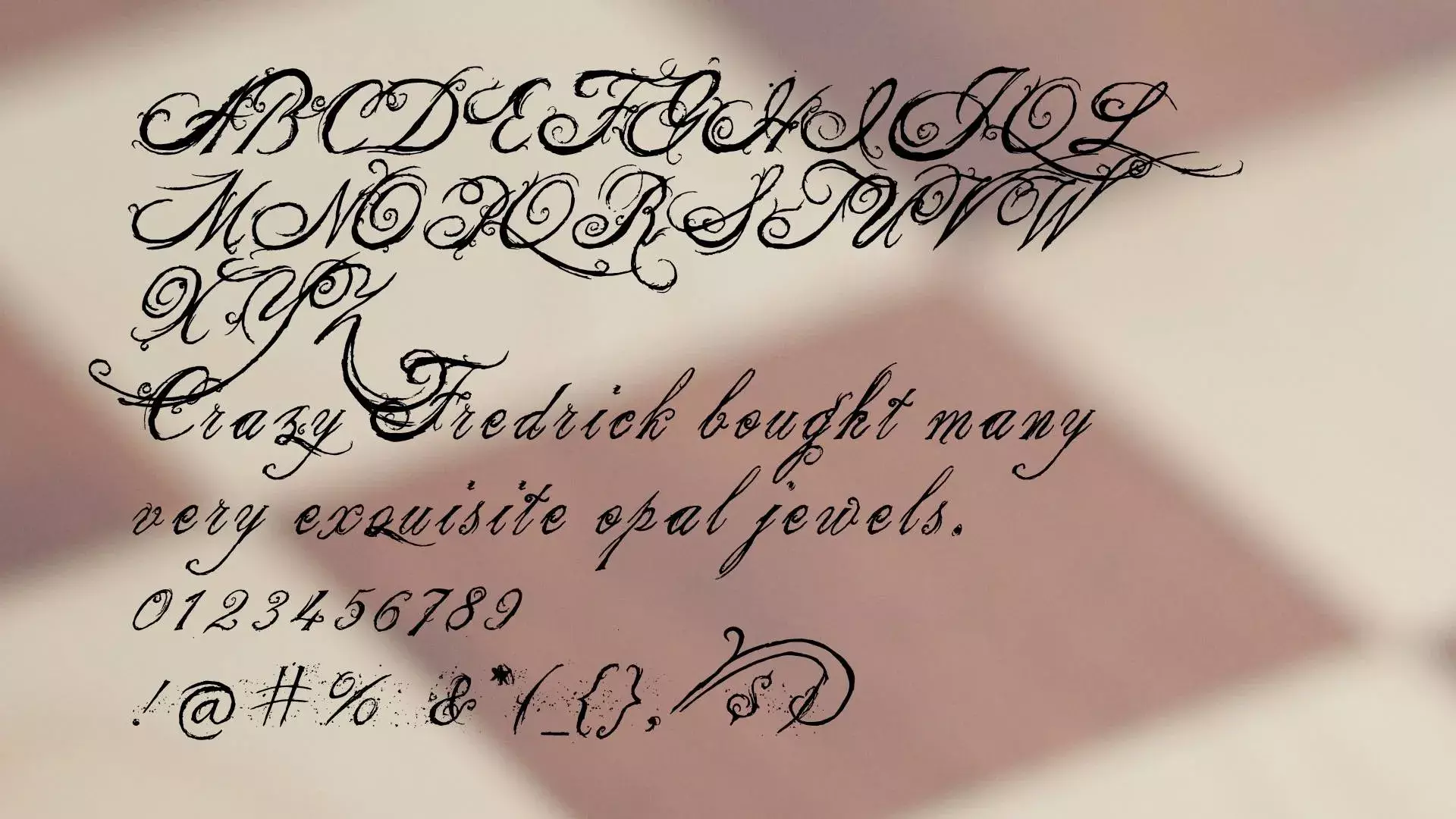
In today’s post, we are trying to meet you to a fashionable, stylish, and charming type of texture that is called King and Queen Font. This texture is a family member of the Script group typeface, the type of this texture is calligraphy with a unique and amazing style design. The designer had inspired with the Royel system and designed such a typeface with getting match to palace.
This typeface is the same as Brother Tattoo Font. The style and character of these typefaces getting match each other. This is a creative and decorative style of typeface, which makes your design more attractive and eye-catching for the clients. And this is why this font gives a booster marketing result to every designer.
Moreover, this typeface has been released in a regular style, which makes any of the designs more smooth and amazing. This gave a wonderful user appearance that makes this typeface more popular.
Designer of King and Queen Font
This is a muti-style and a script family of texture, that is designed bran. He is a famous designer as well.
This typeface family includes a single style of fonts, this regular style consists of glyphs, numerals with all the characters, uppercase letters, small letters, with a large range of language supports.
| Name | King and Queen Font |
| Style | Decorative |
| Designer | bran |
It can support many languages.
This typeface is one of the best and most stunning styles of script family members, which is designed by Bran. this typeface has a multi-style of font.
This typeface is one of the members of the Script family which has so many similar fonts but, the most similar texture to this font is Wishes Script Font.
This texture is a family member of the Script group typeface, the type of this texture is calligraphy with a unique and amazing style design. The designer had inspired with the Royel system and designed such a typeface with getting match to palace.